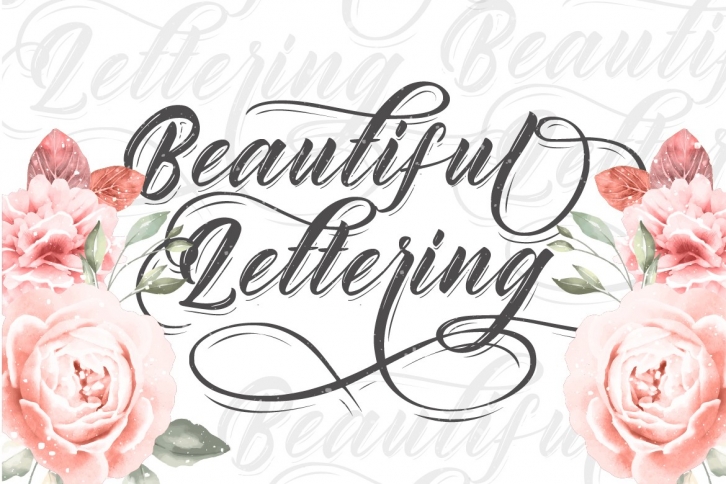
Rhinatta Script is a great font that was designed by Debut Studio. Imagine the amount of combinations you can create using this font! The archive is 16.27 MB and it was released on January 6, 2020. Rhinatta Script looks beautiful on wedding invitations, greeting cards, logos, posters, labels, t-shirt designs, logos, business cards and is perfect for use in ink or watercolor works, fashion, magazines, packaging and food menus, children's books and more!